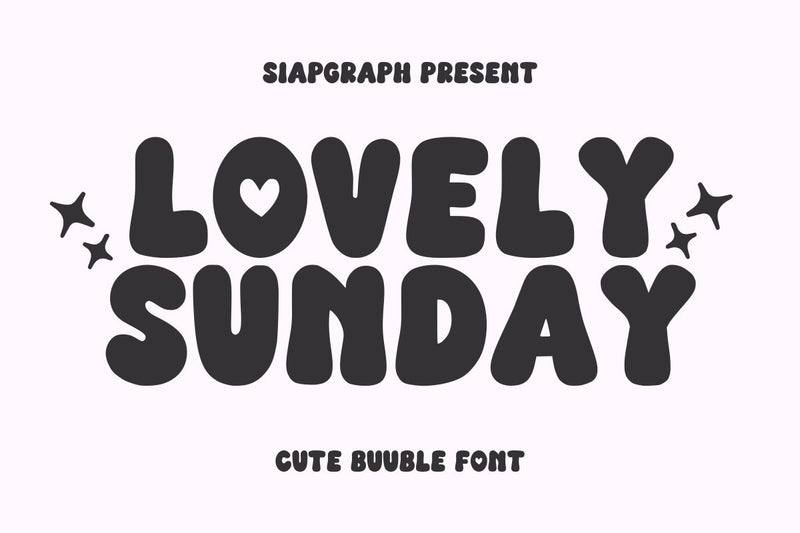
Lovely Sunday - Lovely Groovy Font
Lovely Sunday is a bold and groovy retro font designed to bring a lively and nostalgic vibe to your creative projects. With its thick strokes and playful curves, this font is perfect for adding a fun and vintage-inspired touch to any design.
Ideal for crafting, sublimation, print on demand, decals, DIY, branding, and KDP interior, Lovely Sunday works beautifully for planner designs, logos, greeting cards, merchandise, and product promotions. Whether you're designing for business or personal projects, this font ensures your work stands out with its bold and dynamic aesthetic.